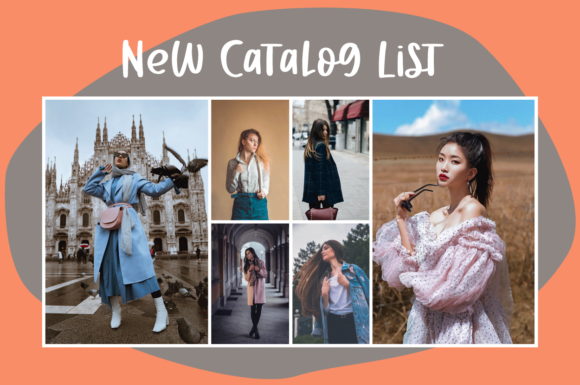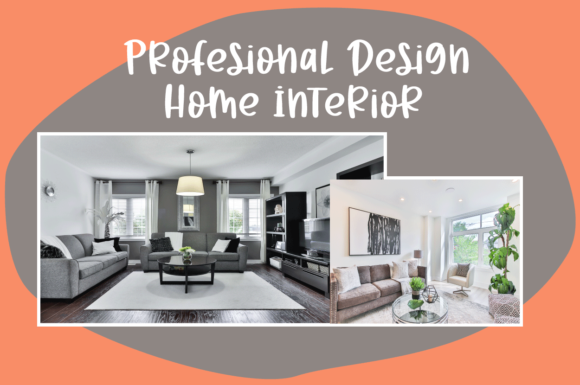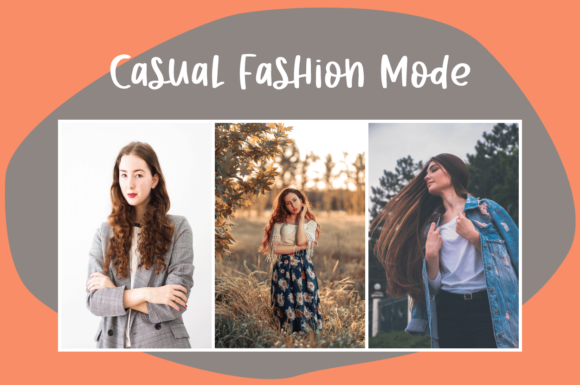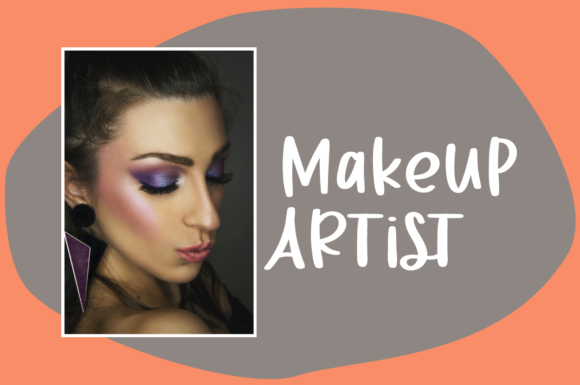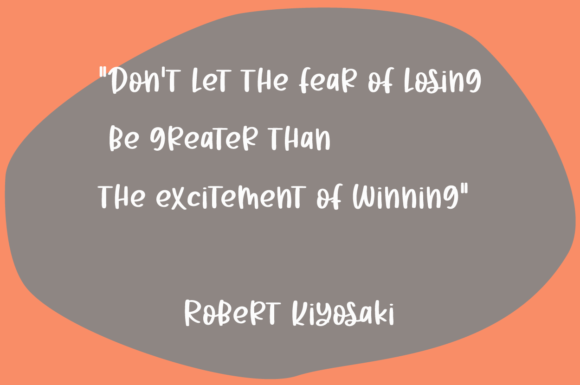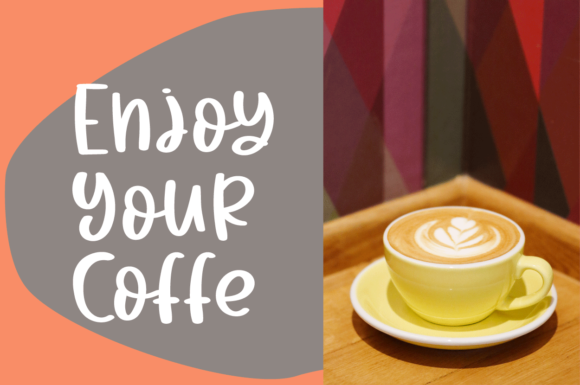
Introducing Hay Brow Font: The Perfect Addition to Your Crafty Projects
Are you a designer or crafter looking for a unique and playful font to add a personal touch to your creations? Look no further than Hay Brow Font, a cute, friendly, and quirky handwritten font that’s sure to bring a smile to your face. With its original look and versatility, Hay Brow Font is the perfect addition to a wide range of crafty ideas, from letterheads and titles to stationery and more.
The Characteristics of Hay Brow Font
Hay Brow Font is a one-of-a-kind handwritten font that’s been carefully crafted to bring a sense of whimsy and fun to your designs. Its distinctive characteristics include:
- Cute and Friendly Appearance: Hay Brow Font features a playful and approachable design that’s perfect for creating a warm and inviting atmosphere in your designs.
- Quirky Handwritten Style: The font’s handwritten style gives it a unique and personal feel that’s sure to stand out from more traditional fonts.
- Highly Legible: Despite its playful nature, Hay Brow Font is highly legible, making it perfect for use in a wide range of applications, from titles and headings to body text.
Uses for Hay Brow Font
Hay Brow Font is an incredibly versatile font that can be used in a wide range of crafty projects, including:
- Letterheads and Stationery: Add a personal touch to your letterheads and stationery with Hay Brow Font’s playful and friendly design.
- Titles and Headings: Use Hay Brow Font to create eye-catching titles and headings that are sure to grab attention.
- Signage and Displays: Hay Brow Font’s quirky design makes it perfect for use in signage and displays, adding a touch of personality to your message.
- Digital and Print Media: Whether you’re creating digital or print media, Hay Brow Font is the perfect choice for adding a touch of whimsy and fun to your designs.
Why Choose Hay Brow Font?
With so many fonts to choose from, why should you choose Hay Brow Font for your crafty projects? Here are just a few reasons:
- Unique and Original Design: Hay Brow Font features a one-of-a-kind design that’s sure to stand out from more traditional fonts.
- Easy to Read and Use: Despite its playful nature, Hay Brow Font is highly legible and easy to use, making it perfect for a wide range of applications.
- Perfect for Crafty Projects: Hay Brow Font’s quirky design makes it perfect for use in crafty projects, from letterheads and titles to stationery and more.
Tips for Using Hay Brow Font
To get the most out of Hay Brow Font, here are a few tips to keep in mind:
- Use it Sparingly: While Hay Brow Font is perfect for adding a touch of personality to your designs, it’s best to use it sparingly to avoid overwhelming your audience.
- Pair it with Other Fonts: Hay Brow Font pairs perfectly with other fonts, so don’t be afraid to experiment with different combinations to find the perfect look for your project.
- Experiment with Colors and Textures: Hay Brow Font looks great in a wide range of colors and textures, so don’t be afraid to experiment to find the perfect look for your project.
Hay Brow Font is a unique and playful handwritten font that’s perfect for adding a personal touch to your crafty projects. With its cute and friendly appearance, quirky handwritten style, and high legibility, Hay Brow Font is the perfect choice for a wide range of applications, from letterheads and titles to stationery and more. So why not give Hay Brow Font a try today and see the difference it can make in your designs?